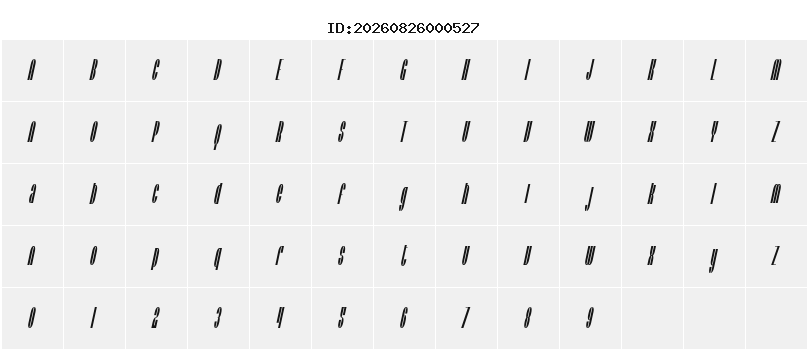
SF Baroquesque Condensed Preview
• Font Name: SF Baroquesque Condensed
• Font Style: Oblique
• Font ID: SF Baroquesque
• Full Font Name: SF Baroquesque Condensed Oblique
About SF Baroquesque Condensed.ttf
SF Baroquesque Condensed.ttf is a modern, elegant sans-serif font designed for ultimate readability and visual harmony. Perfect for branding, headlines, web design, and print materials.